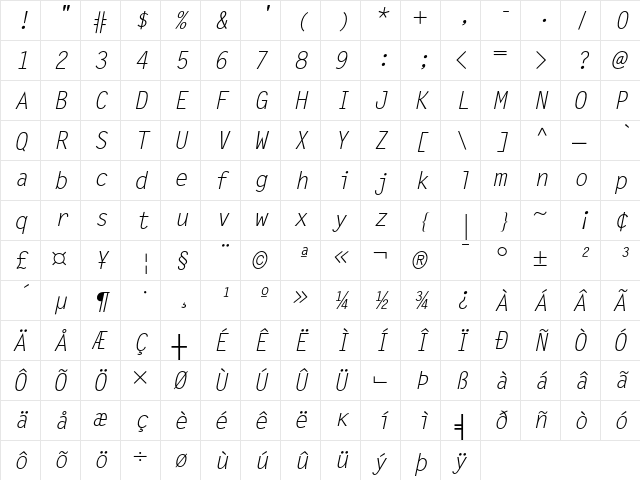
Letter Gothic Slanted
| Style | Slanted |
Design Context for Letter Gothic Typeface
Letter Gothic has the quiet confidence of well-executed sans-serif typography: versatile, unobtrusive, and dependable at any size. The slanted form adds forward momentum and visual energy.
Font Pairing: Works well alongside a characterful serif or display font that can carry the expressive load while Letter Gothic handles the functional copy.
Pro Tip: Use Letter Gothic for UI labels, navigation, and short-form body copy where clean legibility is the priority.